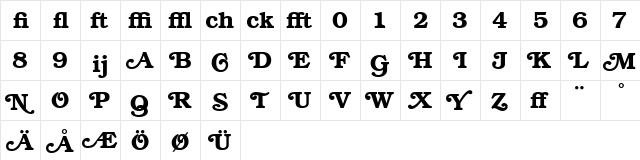
Bookman Profi Demi
Design Context for Bookman Profi Typeface
Bookman Profi takes a measured approach to typography — its balanced proportions and neutral character make it a reliable workhorse for both digital and print work.